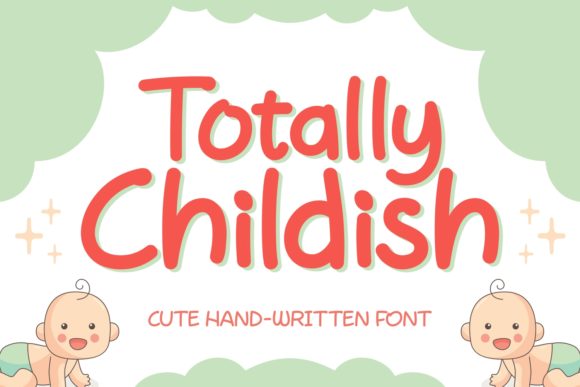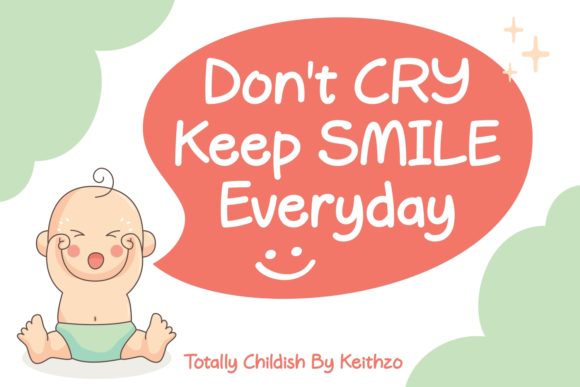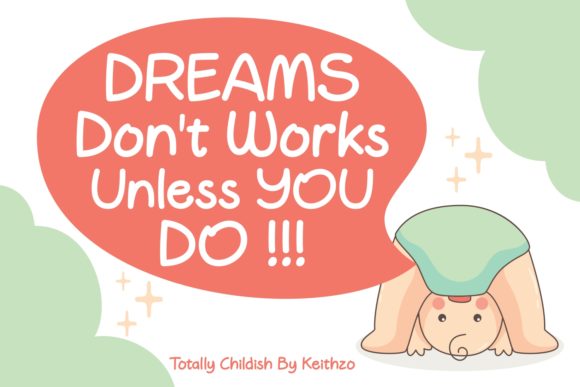
Totally Childish Font
About Totally Childish Font
Totally Childish is a happy and playful handwritten font.
It is perfect for kids related designs and it will give your next project a warm and fuzzy vibe.